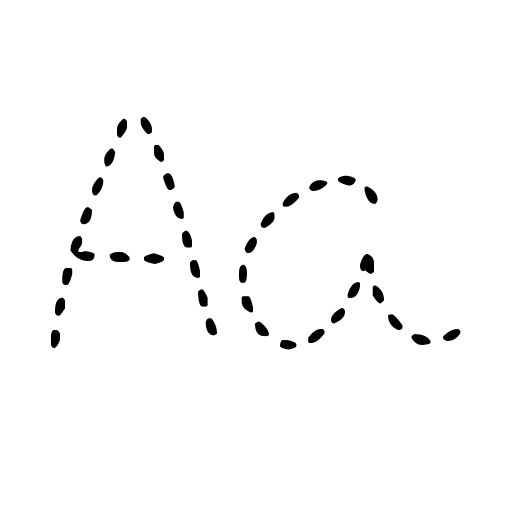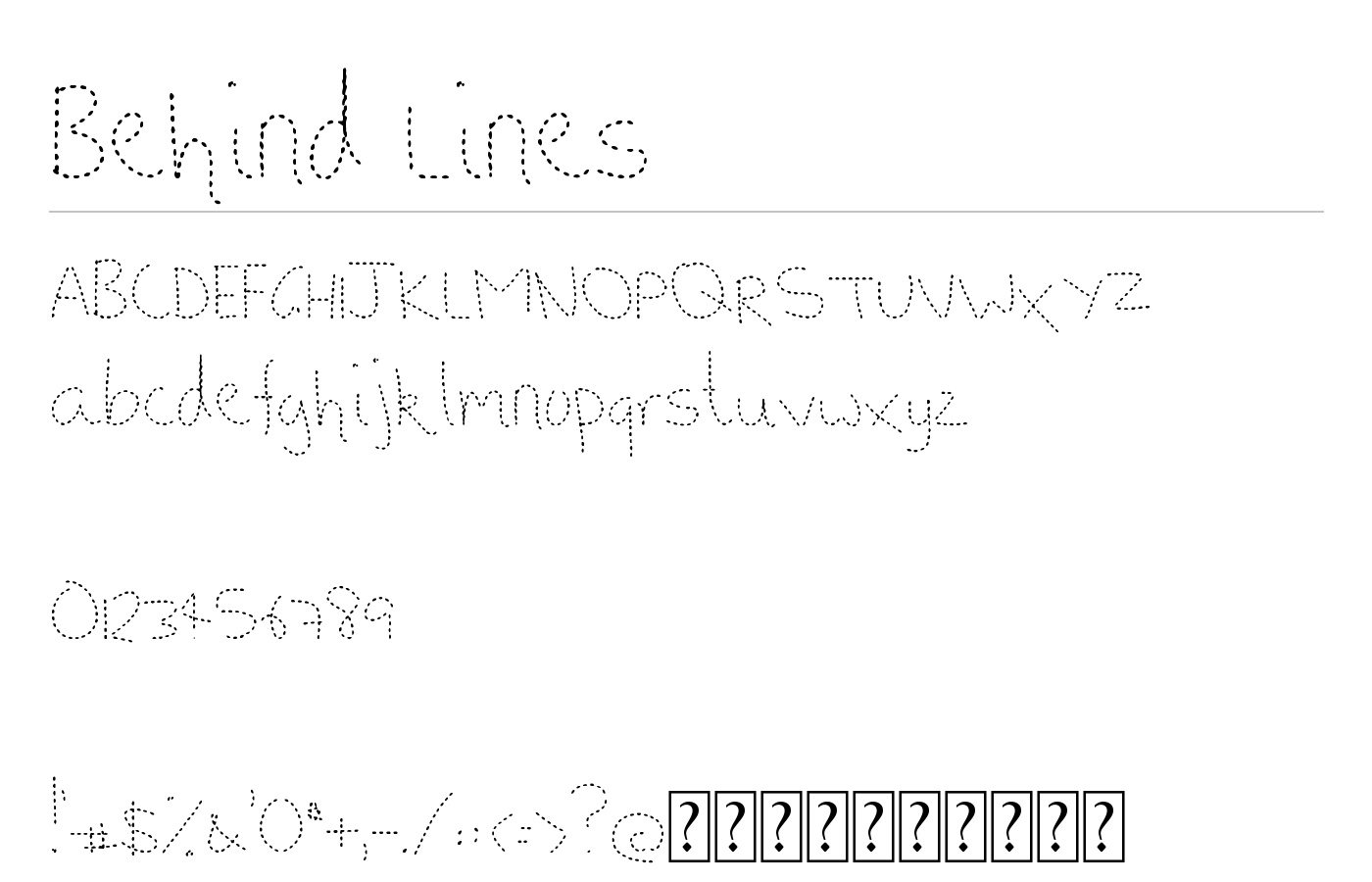
Behind Lines is a playful, handwritten-style sans serif font made up of delicate dotted lines, giving it a light and airy feel. Its tall, narrow letterforms and informal touch make it perfect for creative projects, children's designs, or casual branding that wants to convey friendliness and simplicity. This font works well for headlines, invitations, and lighthearted packaging where a hand-crafted, approachable look is desired.
Behind Lines Font
About Behind Lines Font